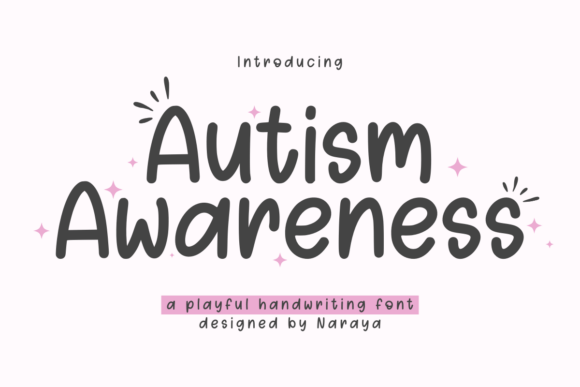
Introducing Autism Awareness Font: A Symbol of Hope and Understanding
In a world where communication is key, typography plays a vital role in conveying emotions and messages. For individuals and organizations working towards autism awareness, a font that embodies warmth, care, and community is essential. This is where the Autism Awareness Font comes in – a soft and approachable handwriting font designed to empower your message with compassion and understanding.
The Design Behind the Font
The Autism Awareness Font features gentle, rounded strokes that exude a sense of friendliness and approachability. Its informal rhythm creates a feeling of familiarity, making it perfect for advocacy groups, educators, and families seeking to connect with their audience on a personal level. The font’s high legibility ensures that your message is conveyed clearly, while its “sparkle” decorative accents add a touch of whimsy and playfulness.
Perfect for Various Applications
The Autism Awareness Font is versatile and can be used in a variety of contexts to spread awareness and promote understanding. Some of the best use cases for this font include:
• Awareness campaign posters: Create eye-catching posters that grab attention and convey your message with clarity and compassion.
• Charity event flyers: Design flyers that showcase your event’s purpose and encourage people to participate, all while conveying a sense of warmth and community.
• Educational resources: Develop educational materials that are both informative and engaging, using a font that resonates with your audience.
• Heartfelt social media posts: Share your message with the world through social media, using a font that adds a personal touch to your posts.
• Personalized stationery: Create customized stationery that reflects your organization’s personality and values, perfect for correspondence with supporters and families.
Why Choose the Autism Awareness Font?
The Autism Awareness Font is more than just a typeface – it’s a symbol of hope and understanding. By choosing this font, you’re not only conveying your message effectively but also showing your support for the autism community. This font:
• Evokes emotions: The font’s gentle and rounded strokes create a sense of warmth and care, evoking emotions that foster connection and understanding.
• Promotes positivity: The Autism Awareness Font’s friendly and informal rhythm promotes a positive tone, perfect for spreading awareness and encouraging acceptance.
• Encourages inclusivity: By using a font that is approachable and easy to read, you’re encouraging inclusivity and making your message accessible to a wider audience.
To get the most out of the Autism Awareness Font, here are some tips for designers and crafters:
• Experiment with colors: Pair the font with colors that resonate with your brand or organization’s personality, such as soothing blues and greens or vibrant yellows and oranges.
• Play with textures: Add a tactile element to your design by incorporating textures that complement the font’s gentle and rounded strokes.
• Balance typography: Balance the font with other typography elements, such as bold headings or clean sans-serif fonts, to create visual interest and hierarchy.
The Autism Awareness Font is a powerful tool for anyone looking to spread awareness and promote understanding. With its soft and approachable design, this font is perfect for advocacy groups, educators, and families seeking to communicate with warmth and positivity. By choosing this font, you’re not only empowering your message but also showing your support for the autism community. So why not give it a try and see how the Autism Awareness Font can make a difference in your designs?